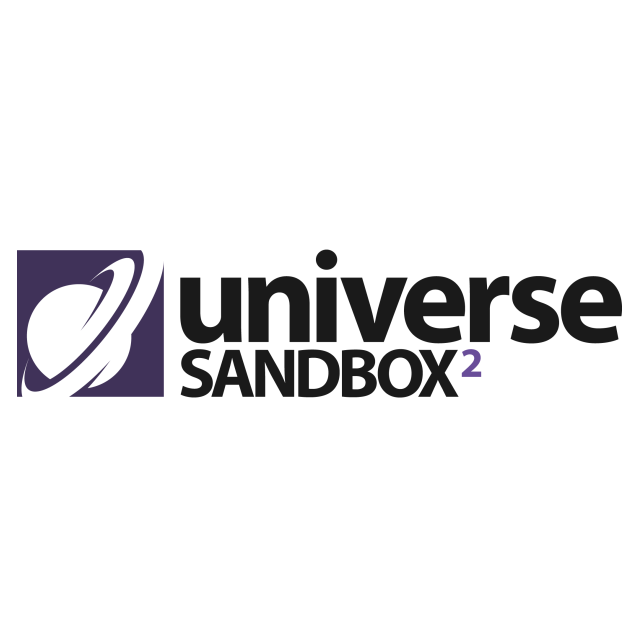
Universe Sandbox Font
Fonts in UseUniverse Sandbox is a physics-based space simulation game that allows players to create and manipulate virtual universes, simulating the laws of physics and exploring the dynamics of celestial bodies.
The Universe Sandbox logo features the Myriad Bold font, a humanist sans serif designed by Carol Twombly & Robert Slimbach and published by Adobe. You can preview and purchase the Myriad font here.